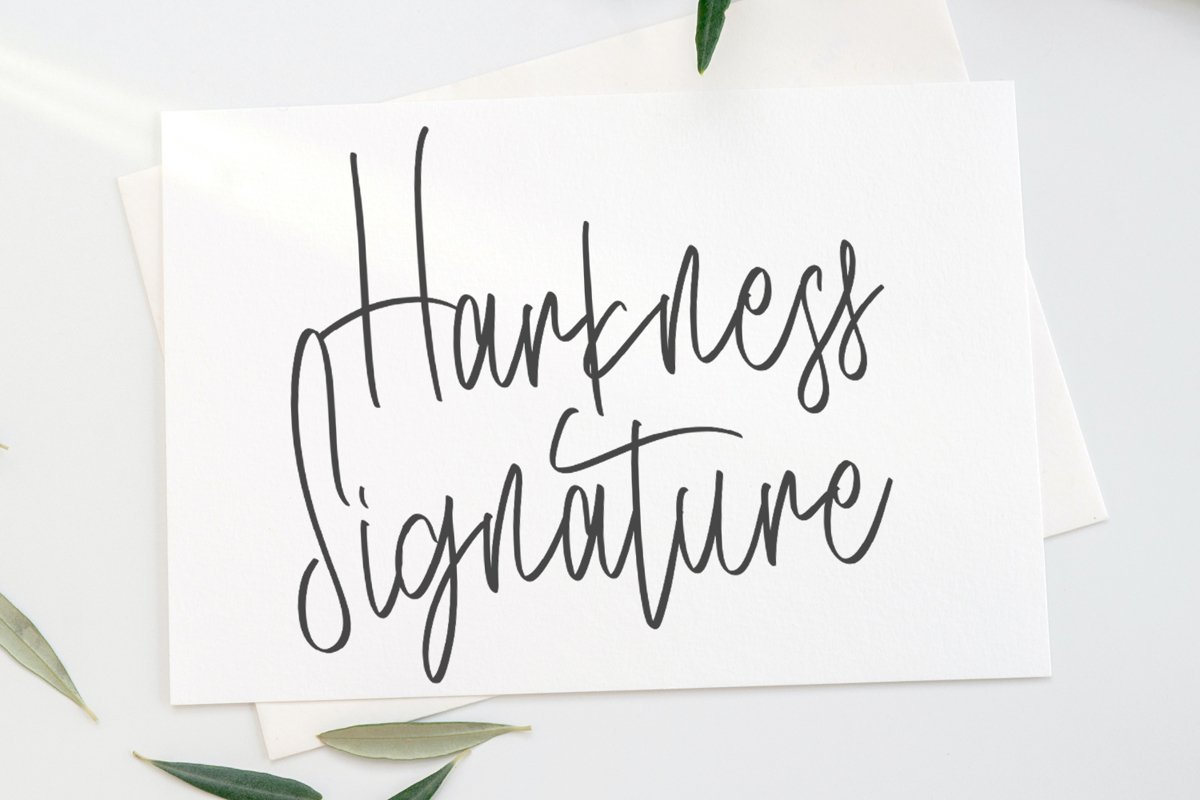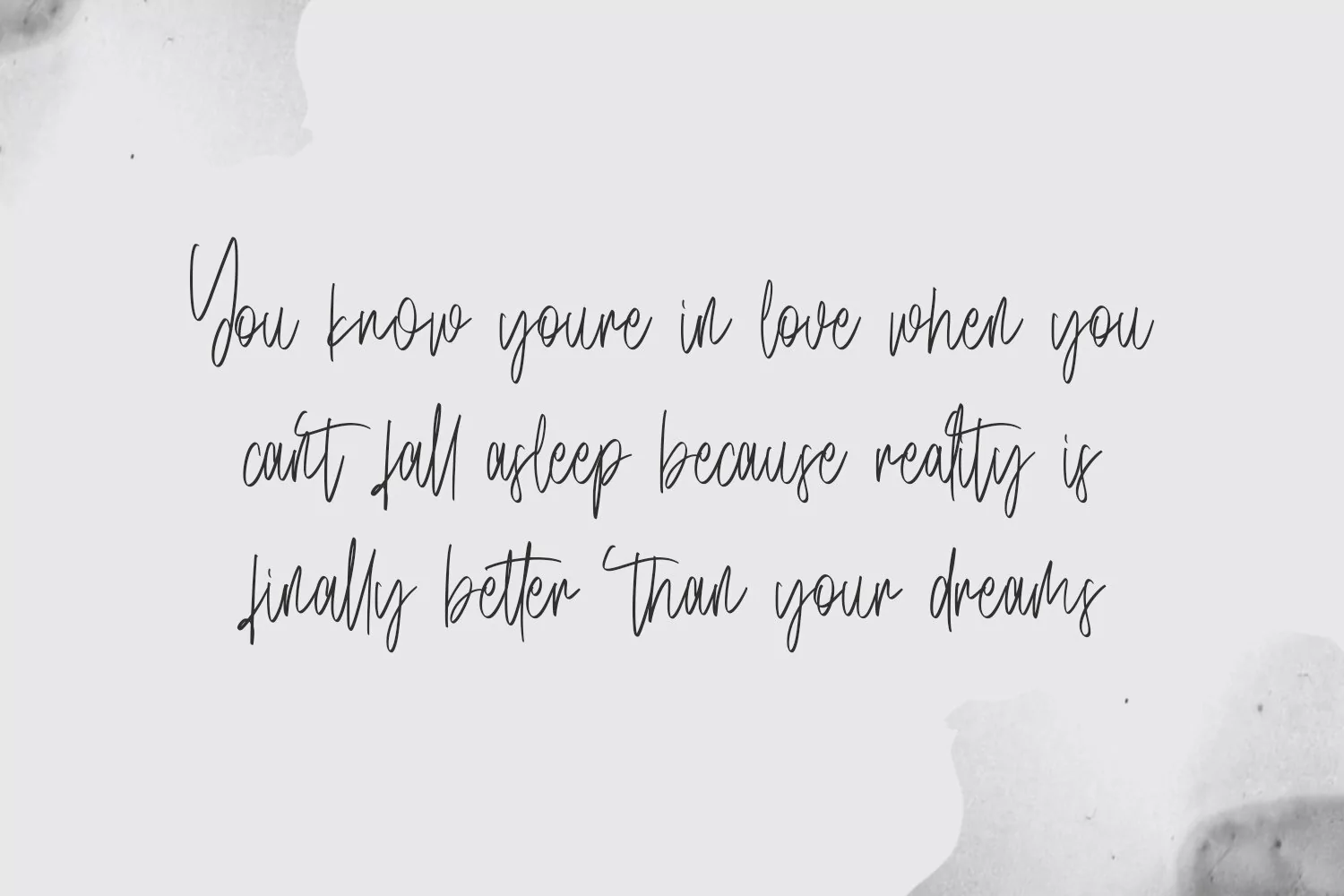
Harkness - Signature Script Fonts that contain lowercase, uppercase, symbol, and also support multi language. There’s a lot ligatures in this font. This Font also comes with ligatures, alternates and many more. this font suitable for fashion, branding, catalog and other design what you want.
Harkness